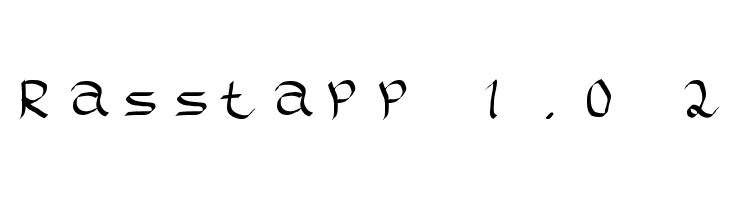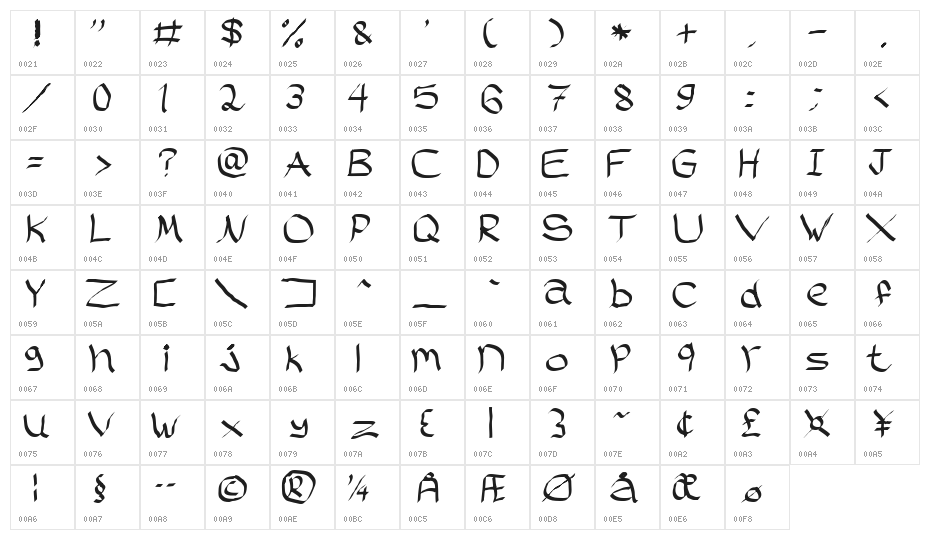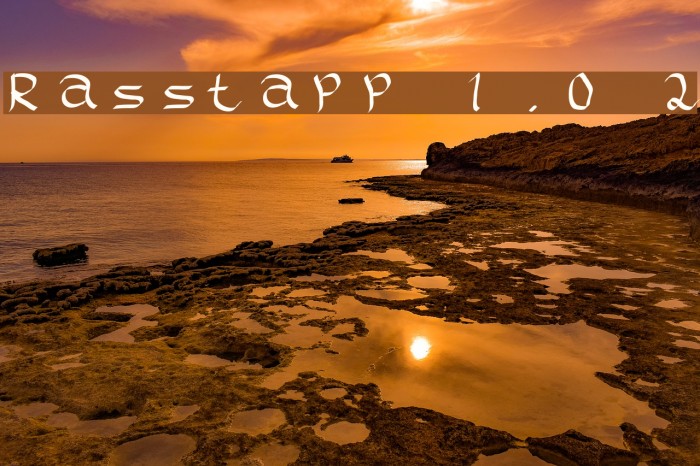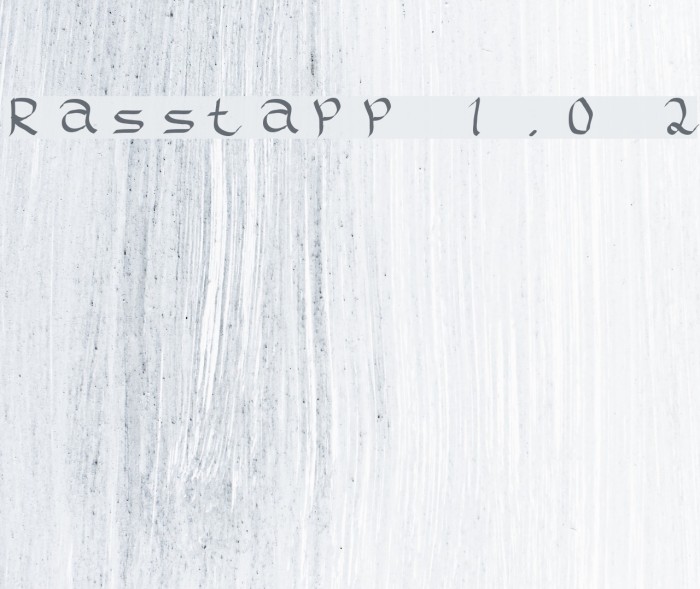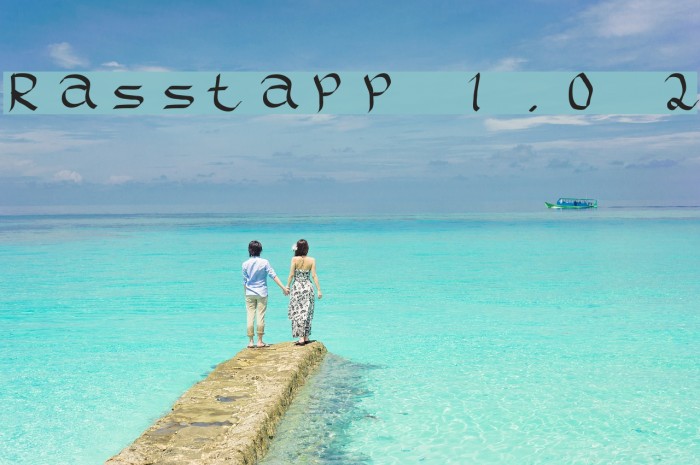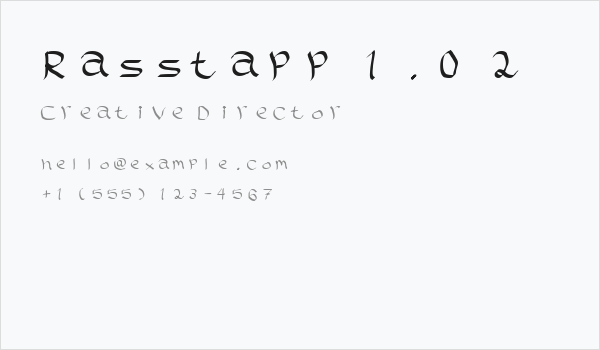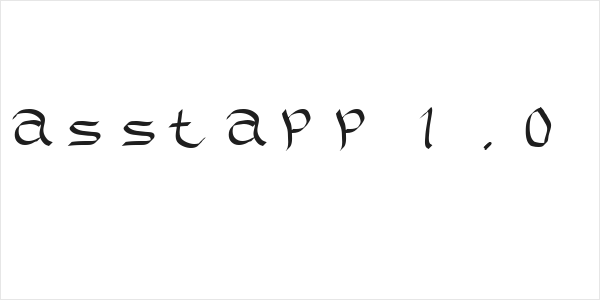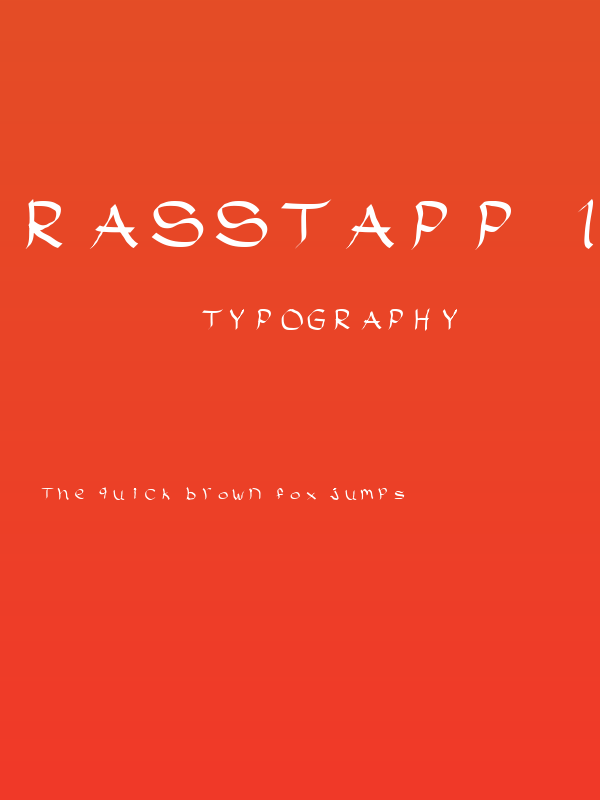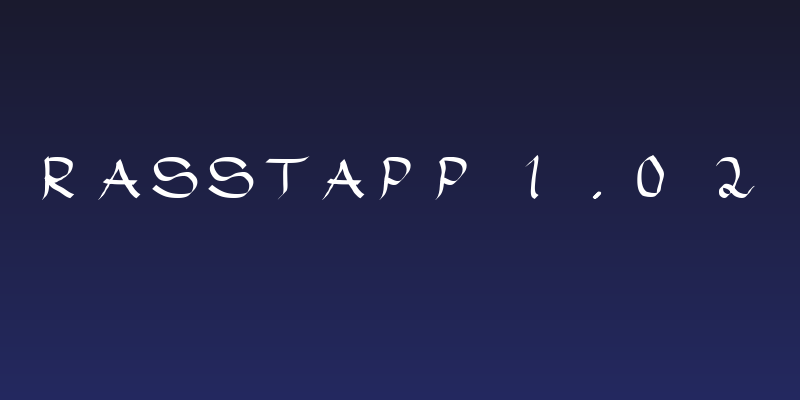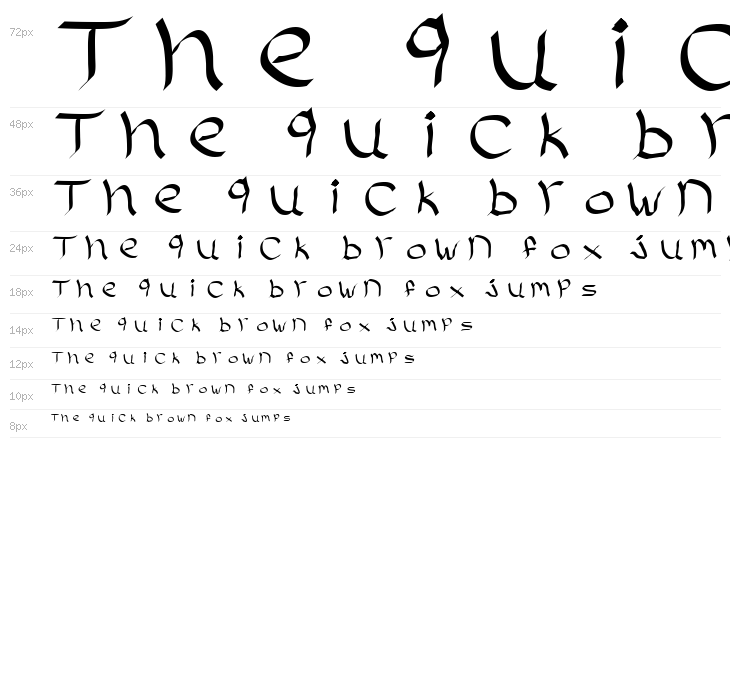
Rasstapp 1.0 2 Font
Rasstapp 1.0 2 Description
This font exhibits a unique, artistic style with a calligraphic influence. The characters are crafted with a dynamic, flowing motion, giving them an expressive and slightly edgy appearance. The strokes vary in thickness, adding a sense of movement and energy to the text. The uppercase letters are bold and striking, while the lowercase letters maintain a consistent style that complements the overall design. Numbers and special characters are designed with the same artistic flair, ensuring a cohesive look across all text elements. This font is ideal for projects that require a creative and distinctive touch.
Overall StyleArtistic, Calligraphic
Use CaseHeadlines, Artistic designs, Branding
Proposed ProjectsIdeal for creative projects such as invitations, posters, branding, and artistic designs.